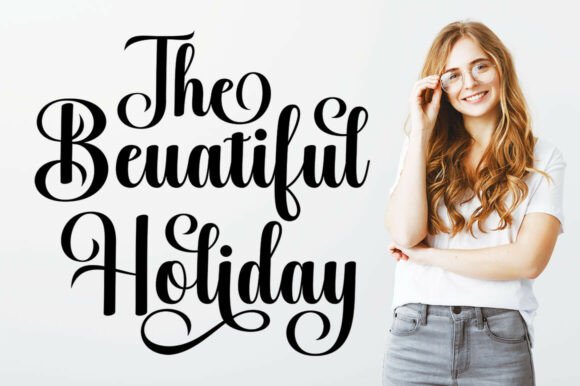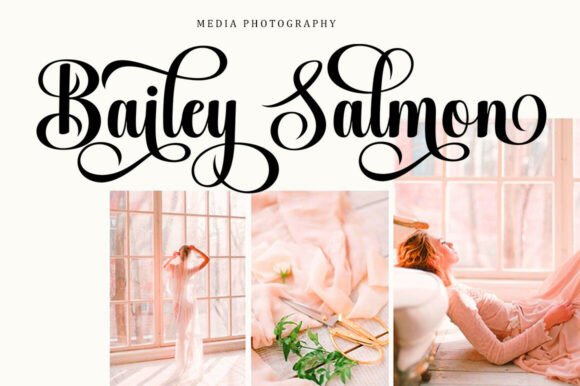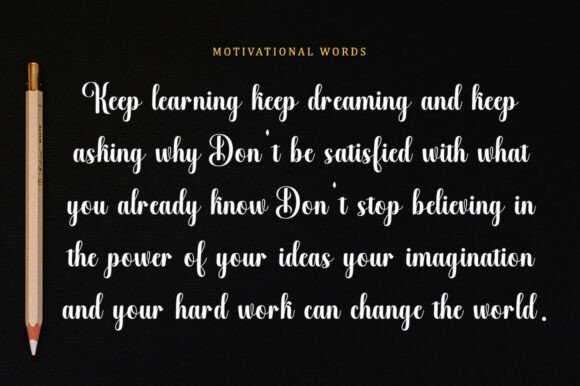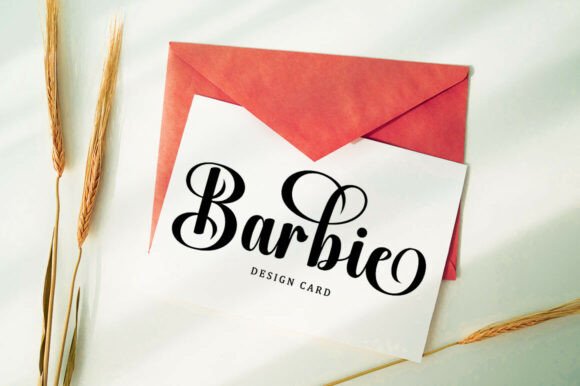
Wicked Halloween Font
Wicked Halloween is a stylish script font that exudes creativity and modern elegance. Featuring flowing strokes, graceful curves, and expressive letterforms, it captures the beauty of hand-drawn calligraphy with a contemporary flair. Ideal for logos, invitations, packaging, and social media graphics, it adds an artistic and sophisticated touch to any design. With its natural rhythm and refined details, this font delivers both visual charm and versatility.